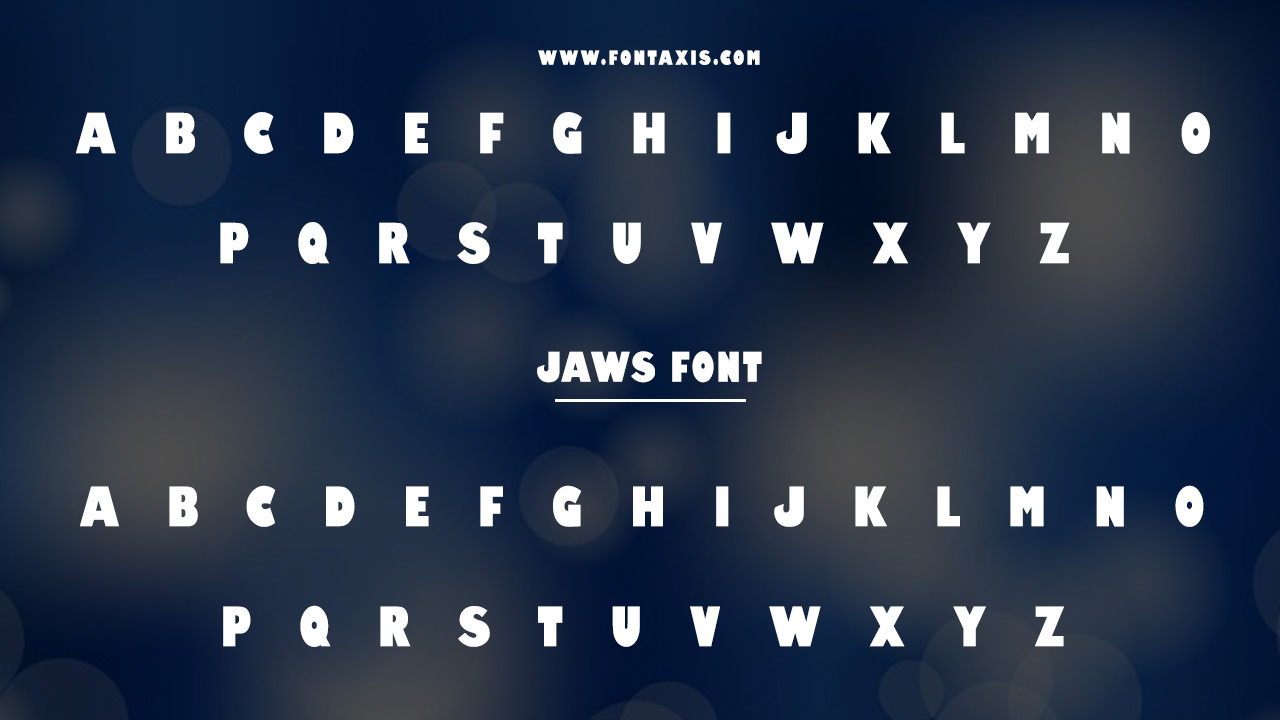
The Jaws font, prominently used in Steven Spielberg’s iconic 1975 thriller, was inspired by the gripping storyline of a man-eating great white shark terrorizing a coastal town.
Designed by AJ Paglia, this bold typeface captures the suspense and drama of the film. Drawing comparisons to Gill Sans, the Jaws font’s modern interpretation serves as a timeless display font suitable for various design projects.
| Name | Jaws Font (Amity Jack) |
| Style | Bold, all-caps sans-serif |
| Designer | AJ Paglia |
| Type | Display Font |
The Jaws Font family includes uppercase letters, numbers, and basic punctuation, making it ideal for logos, posters, and headlines.
- Movie posters for creating suspenseful visuals.
- Banners for horror-themed events or branding.
- Headers in thriller novels or bibliographies.
- Graphics for marine-themed campaigns.
- Logo design for brands seeking a bold identity.
The Jaws Font, inspired by Spielberg’s cinematic masterpiece, is a prime example of how typography enhances storytelling. Designed by AJ Paglia, the font’s bold, sans-serif style complements the suspense and drama of the film, making it an enduring symbol of fear and tension.
Its versatility allows it to adapt seamlessly across mediums, from posters to logos and beyond. For designers and enthusiasts alike, Jaws Font serves as a reminder of the power of typography in visual communication. Whether you’re designing for print, digital, or branding, this iconic font remains a compelling choice.
1.What Inspired The Jaws Font Design?
The font was inspired by the suspenseful themes of the movie, capturing the looming danger of the shark.
2.Who Created The Jaws Movie Poster?
Roger Kastel designed the iconic poster, with typography closely tied to AJ Paglia’s font creation.
4.What Makes The Jaws Font Suitable For Headers?
Its bold, uppercase design and clean lines make it ideal for creating attention-grabbing headers.